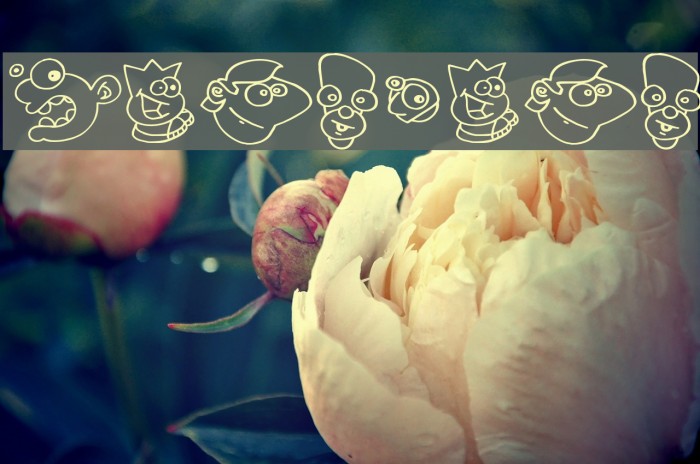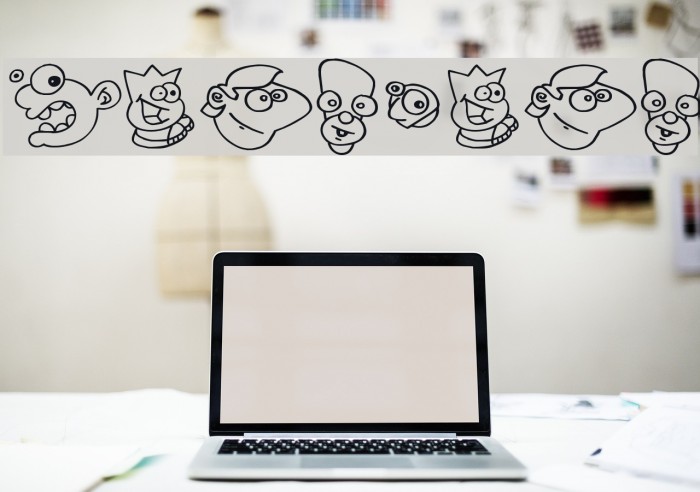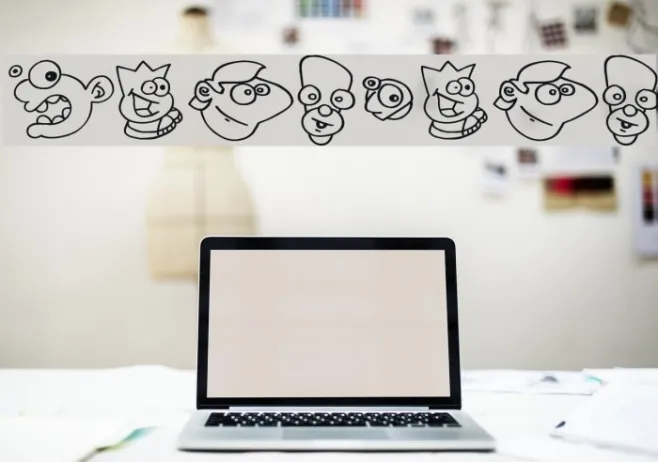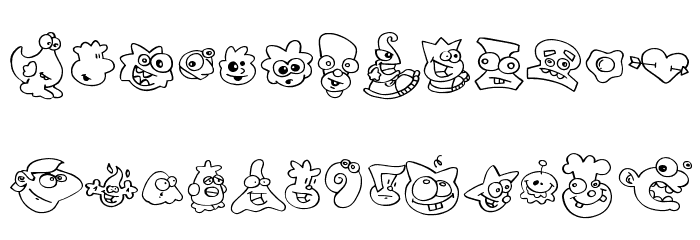
ZingDing Font
ZingDing Description
This playful and whimsical font features a series of cartoon-like characters, each with unique and exaggerated expressions. The characters are highly stylized, with bold outlines and quirky shapes that give them a lively and animated appearance. The font is designed to capture attention with its humorous and entertaining style, making it ideal for projects that require a fun and lighthearted touch. Each character is distinct, contributing to the overall charm and appeal of the font. The design is reminiscent of comic illustrations, with a focus on creativity and imagination.
| Use Case | Logos, Headlines, Posters |
| Proposed Projects | Ideal for children's books, comic strips, playful branding, and party invitations. |